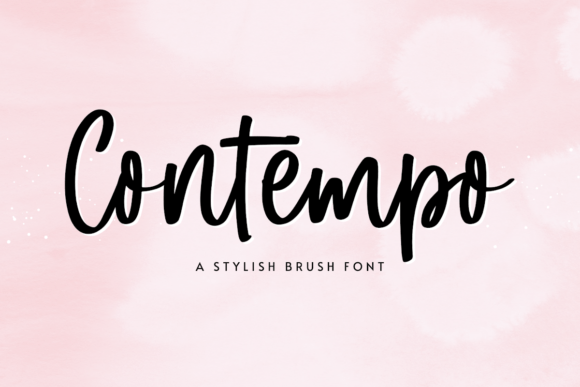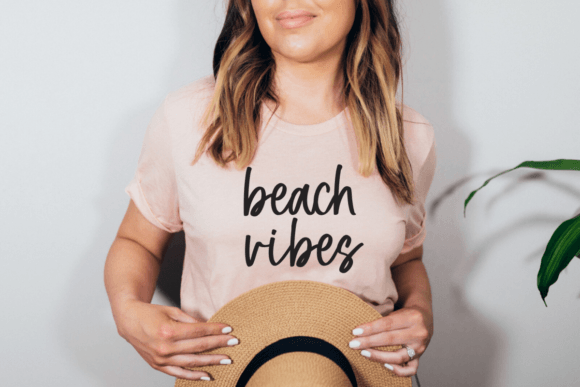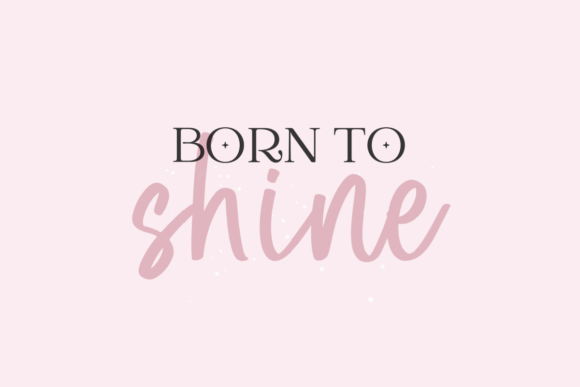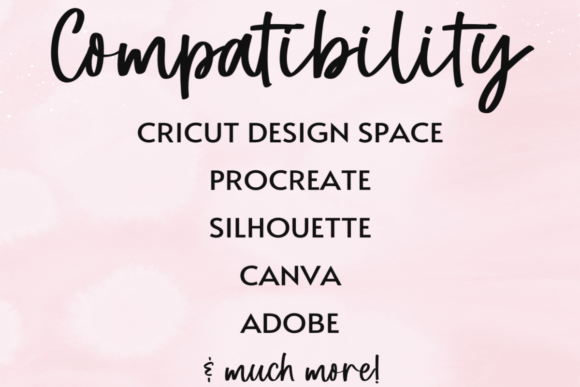
Contempo Font
About Contempo Font
“Contempo” is a delightful and charming brush script font that seamlessly blends playful aesthetics with a touch of elegance. It preserves the graceful influences of calligraphy while exuding a contemporary and fresh vibe. As you explore “Contempo,” you’ll quickly find yourself falling in love with its unique charm and realizing its potential to elevate your design projects to new heights.
This font’s playful and lovely character is a testament to its versatility. It can be applied to a wide range of creative endeavors, from crafting eye-catching headlines to adding a touch of whimsy to invitations, posters, and various design projects. “Contempo” brings a sense of youthful joy and sophistication to your work, making it stand out in a crowded visual landscape.
The fusion of calligraphic influences with a modern twist sets “Contempo” apart. It marries the timelessness of classical script with the freshness of contemporary design, making it a valuable asset for designers seeking to strike a balance between tradition and innovation.
In the realm of design, fonts serve as powerful tools to convey emotions, set the tone, and establish brand identities. “Contempo” excels in these aspects, offering a harmonious blend of playfulness and class that resonates with both creators and audiences. Its brush script style infuses designs with a sense of warmth and personality, making them more engaging and memorable.
In summary, “Contempo” is more than just a font; it’s an invitation to explore the beauty of playful elegance. Its brush script aesthetics, combined with a contemporary twist, make it a standout choice for designers looking to breathe life and sophistication into their projects. Whether you’re an experienced designer or just starting your creative journey, “Contempo” is the font that can take your work to new levels of charm and creativity.